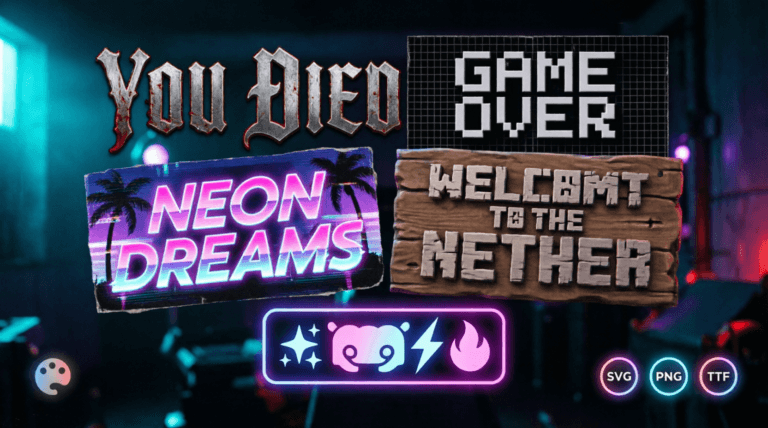
Discover the best free gaming text and font generators in 2026. Create custom Discord symbols, Dark Souls “You Died” text, pixel art fonts, vaporwave aesthetics, Minecraft signs, GTA fonts, and more with Ghostern’s powerful online tools.
In 2026, gaming communities, streamers, and content creators are more obsessed than ever with unique aesthetics. Whether you want a dramatic “YOU DIED” screen, a stylish Discord server name, retro pixel text, or a vaporwave aesthetic, having the right text generator makes all the difference.
Here’s a complete guide to the best free gaming text and font generators available right now — all built by Ghostern to help you create professional-looking custom text instantly.
1. Dark Souls Font Generator
Perfect for creating that iconic FromSoftware feel. Generate realistic “YOU DIED”, boss titles, and gothic text with blood-red effects and ember glows. Ideal for streaming death counters, thumbnails, and fan art.
2. Pixel Art Font Generator
Turn any text into authentic 8-bit or 16-bit retro gaming style. Supports multiple pixel styles, color palettes, scanline effects, and transparent PNG export. Great for indie games, retro thumbnails, and nostalgic content.
3. Vaporwave Text Generator
Create dreamy, nostalgic vaporwave aesthetics with full-width characters, Japanese katakana mix, and pastel neon effects. Perfect for aesthetic servers, album covers, and retro-futuristic designs.
4. Discord Symbol Generator
Make your Discord server stand out with fancy Unicode text, aesthetic symbols, and custom names. Generate stylish roles, channel names, and welcome messages that work perfectly on desktop and mobile.
5. Minecraft Sign Generator
Design realistic Minecraft-style signs with wooden textures and pixelated text. Perfect for builders, roleplay servers, and Minecraft content creators who want authentic in-game text.
6. GTA Font Generator
Recreate the bold, impactful Grand Theft Auto style text used in loading screens and mission titles. Great for GTA roleplay servers and gaming memes.